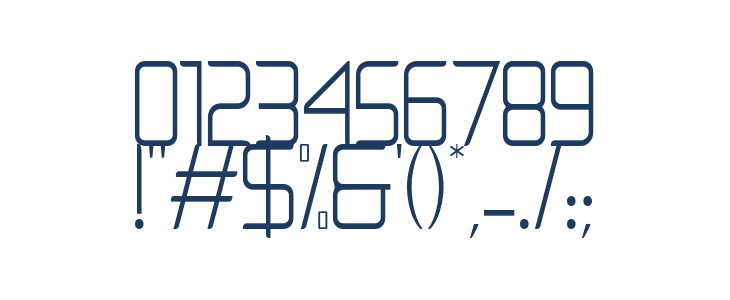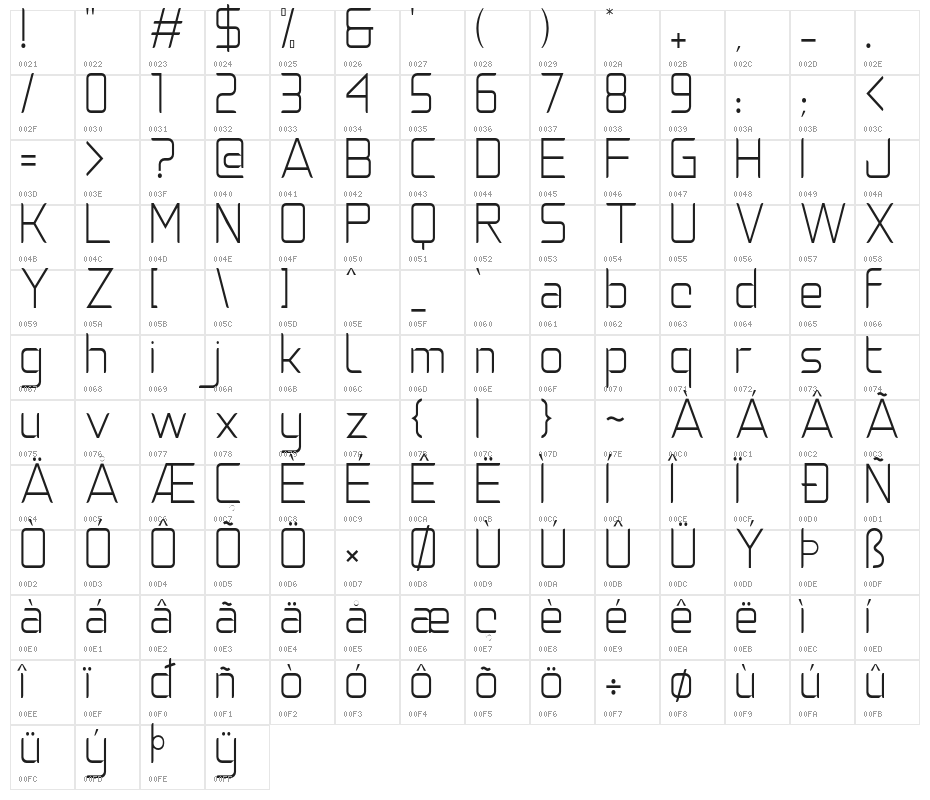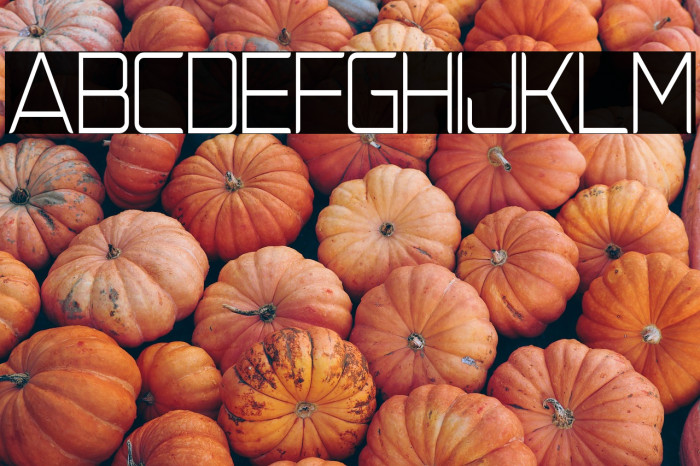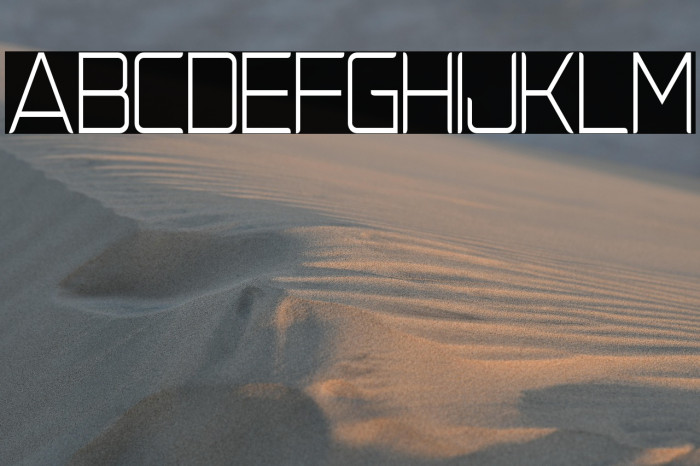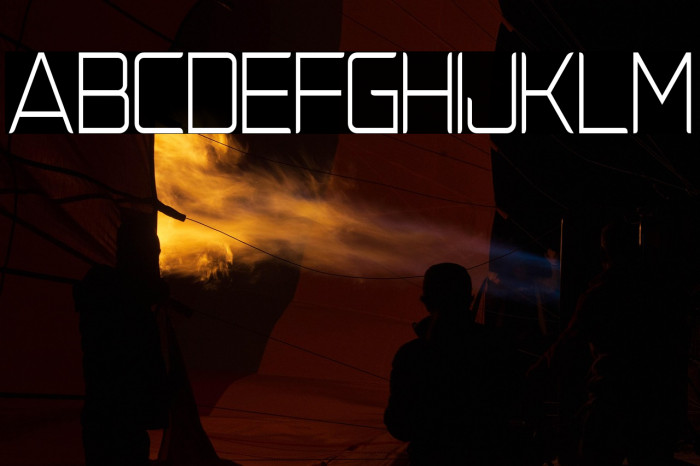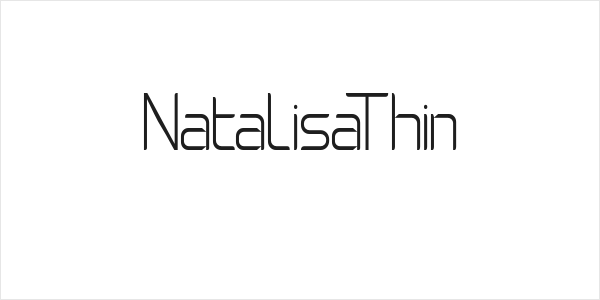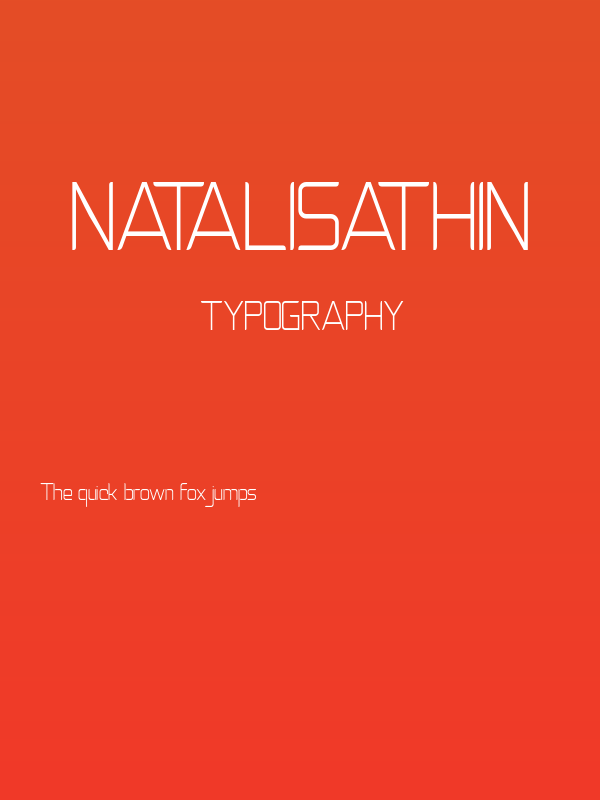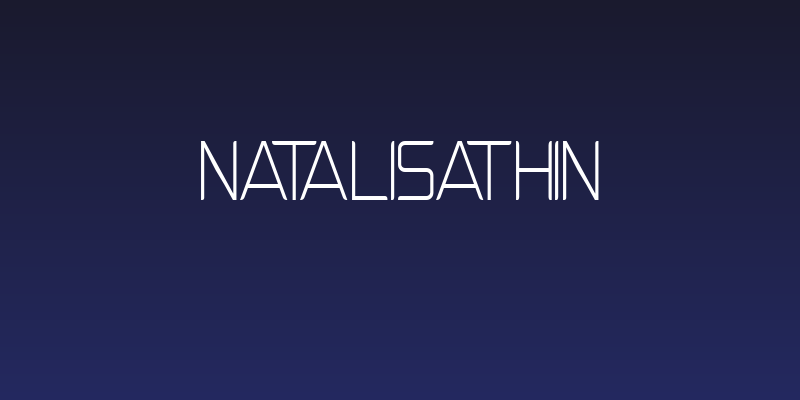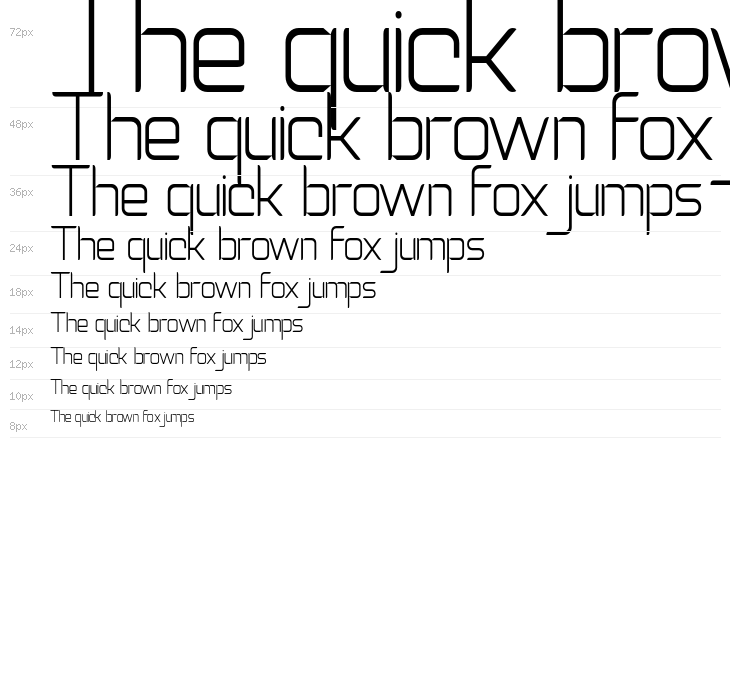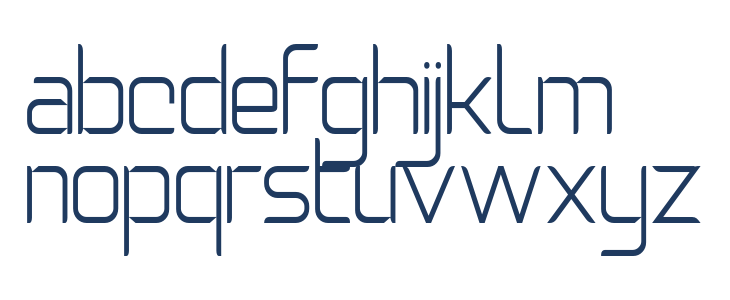
NatalisaThin Font
NatalisaThin Description
This font features a sleek, modern design with thin, geometric lines that create a clean and sophisticated appearance. The characters are constructed with a consistent stroke width, contributing to a uniform and minimalist aesthetic. The uppercase letters are tall and narrow, while the lowercase letters maintain a similar proportion, offering a harmonious balance. The numerals and special characters follow the same design principles, ensuring a cohesive look across all elements. This font's simplicity and elegance make it versatile for various design applications.
| Proposed Projects | Ideal for modern branding, tech-related designs, minimalist posters, and sleek product packaging. |